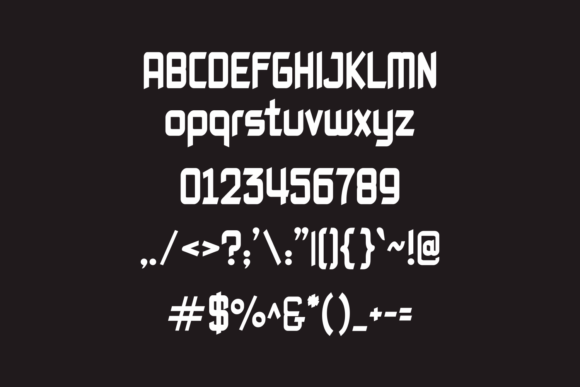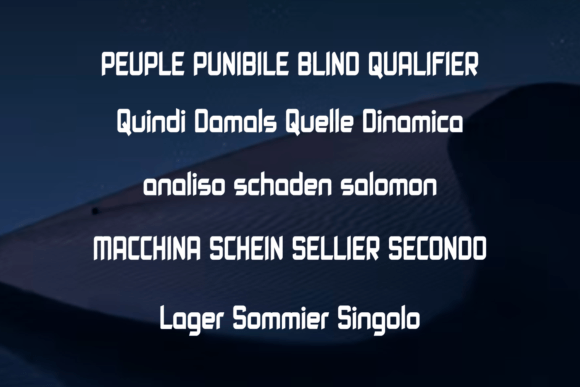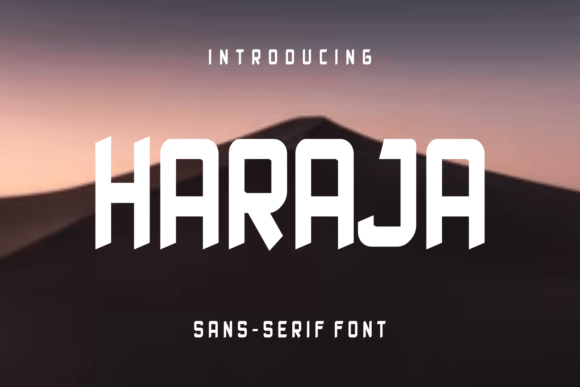
Discover the Cool and Unique Haraja Font: Elevate Your Designs with its Modern Sans Serif Style
Are you tired of using the same old fonts in your designs? Look no further than the Haraja Font, a cool and unique sans serif font that’s sure to take your creations to the next level. With its modern and sleek design, Haraja is the perfect addition to any font library, regardless of the topic or project. In this article, we’ll dive into the features and benefits of the Haraja Font, and explore how it can elevate your designs and help you stand out from the crowd.
What is Haraja Font?
Haraja is a sans serif font that’s characterized by its clean and minimalist design. The font features a unique and modern style that’s perfect for a wide range of applications, from digital designs to print materials. Its simplicity and elegance make it an excellent choice for designers and crafters who want to add a touch of sophistication to their work.
Key Features of Haraja Font
So, what makes Haraja Font so special? Here are some of its key features:
- Unique and Modern Design: Haraja Font boasts a fresh and contemporary design that’s sure to grab attention.
- Clean and Minimalist Style: The font’s simplicity makes it easy to read and versatile enough to use in a variety of contexts.
- Sans Serif Style: The font’s sans serif style gives it a modern and sleek look that’s perfect for digital designs.
- Highly Legible: Haraja Font is designed to be highly legible, making it perfect for body text and captions.
Benefits of Using Haraja Font
So, why should you choose Haraja Font for your next project? Here are some of the benefits of using this amazing font:
- Elevate Your Designs: Haraja Font has the potential to elevate any creation, from social media graphics to blog posts and even print materials.
- Stand Out from the Crowd: With its unique and modern design, Haraja Font can help you stand out from the crowd and establish your brand’s identity.
- Versatile and Adaptable: The font’s simplicity and elegance make it adaptable to a wide range of applications and contexts.
- Perfect for Digital Designs: Haraja Font is optimized for digital designs, making it perfect for social media graphics, website headers, and more.
How to Use Haraja Font in Your Designs
Using Haraja Font in your designs is easy. Here are some tips to get you started:
- Pair it with Other Fonts: Haraja Font pairs well with other fonts, so feel free to experiment with different combinations to find the perfect look for your design.
- Use it for Headings and Captions: The font’s unique design makes it perfect for headings and captions, where you want to grab attention and add visual interest.
- Experiment with Colors and Textures: Haraja Font looks great in a variety of colors and textures, so don’t be afraid to experiment and find the perfect look for your design.
In conclusion, Haraja Font is a cool and unique sans serif font that’s sure to elevate your designs and help you stand out from the crowd. With its modern and sleek design, high legibility, and versatility, Haraja Font is the perfect addition to any font library. Whether you’re a designer, crafter, or simply someone who loves typography, Haraja Font is definitely worth checking out. So why wait? Download Haraja Font today and take your designs to the next level!